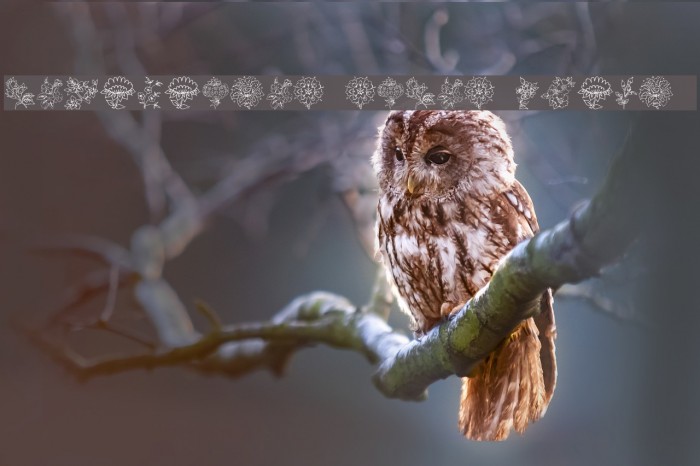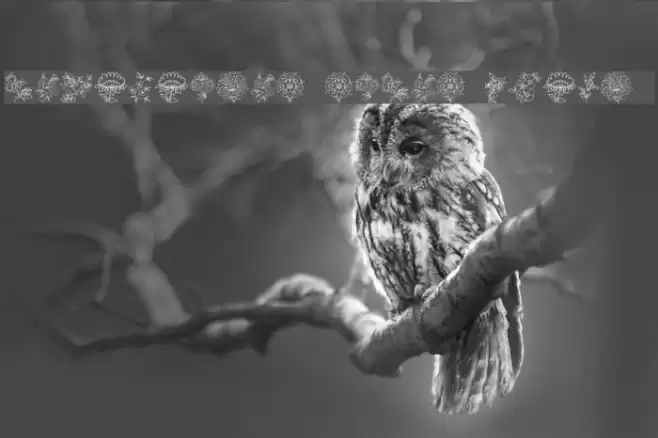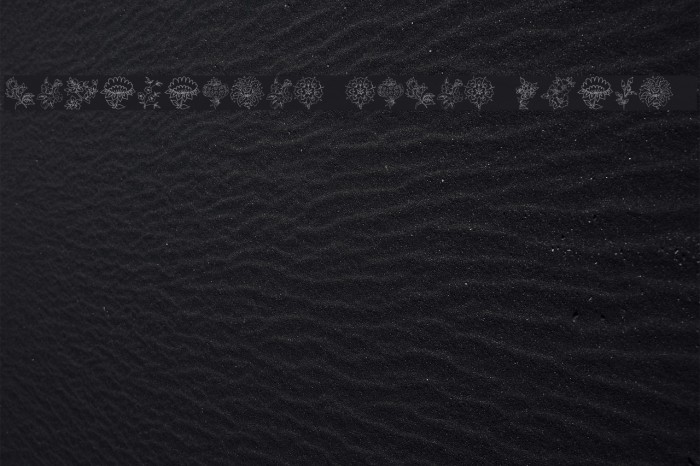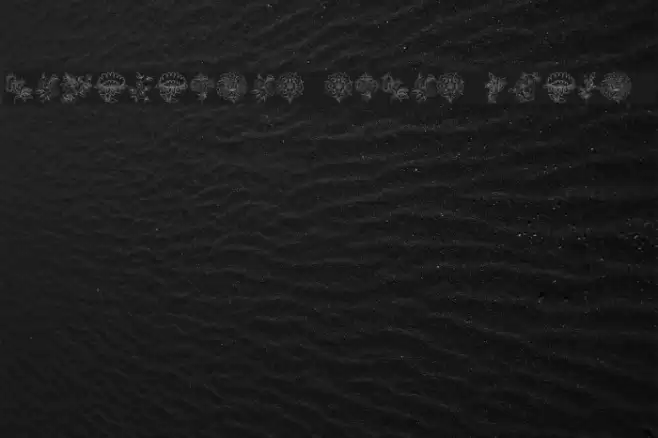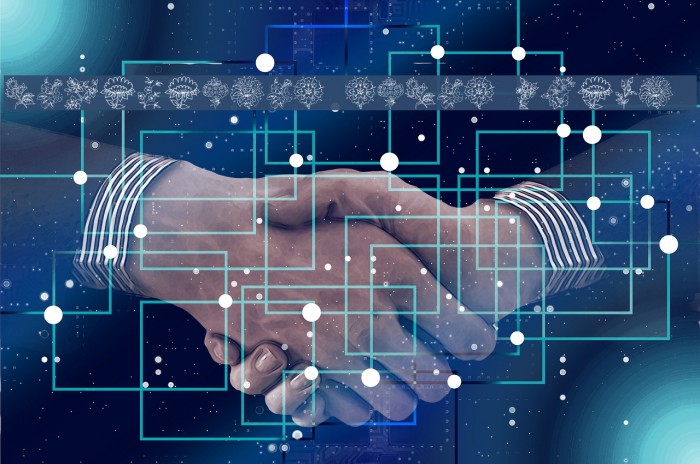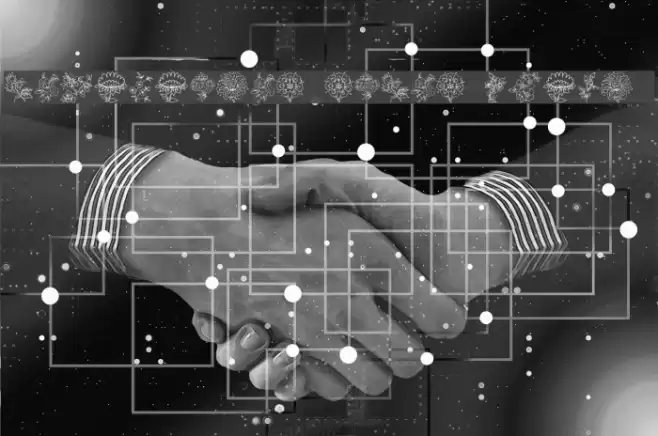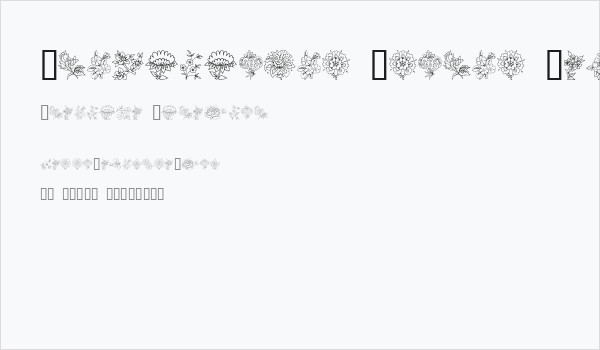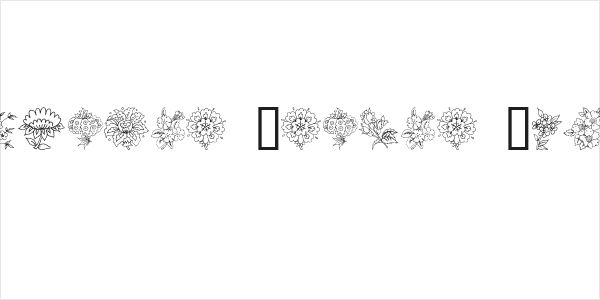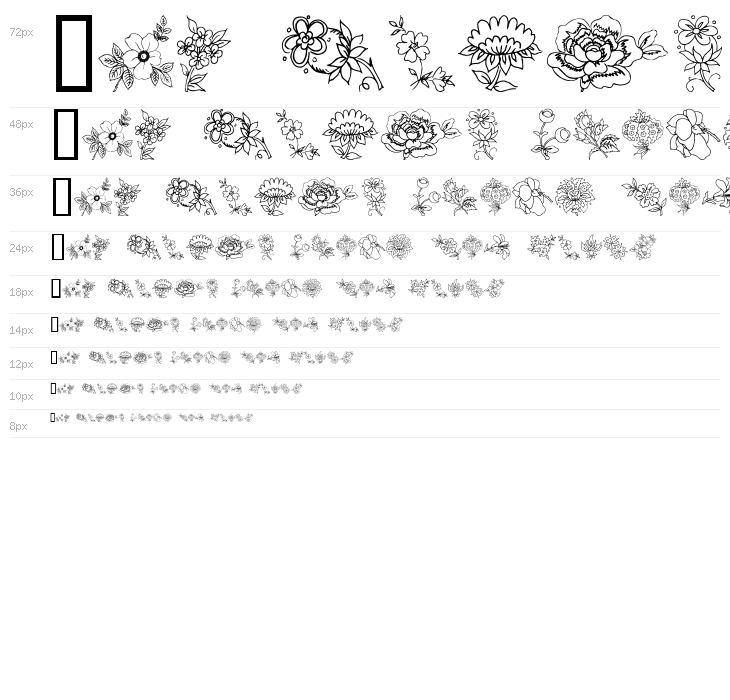
Traditional Floral Design II Font
Traditional Floral Design II Description
A decorative set of traditional floral illustrations, each glyph representing a unique, detailed flower or bouquet in a hand-drawn, line-art style. The designs are intricate and organic, with fine lines and naturalistic forms, evoking a vintage botanical illustration aesthetic.
| Overall Style | Vintage, Decorative, Botanical |
| Use Case | Decorative accents, Logos, Invitations, Stationery |
| Proposed Projects | Wedding invitations, greeting cards, packaging, branding, textile prints, decorative borders, scrapbooking. |